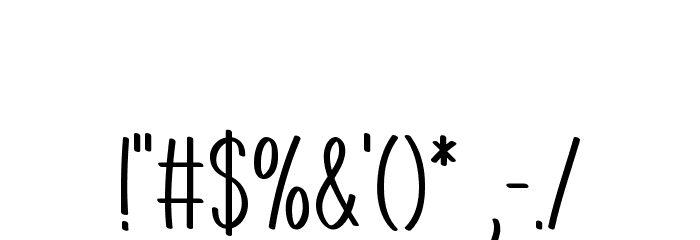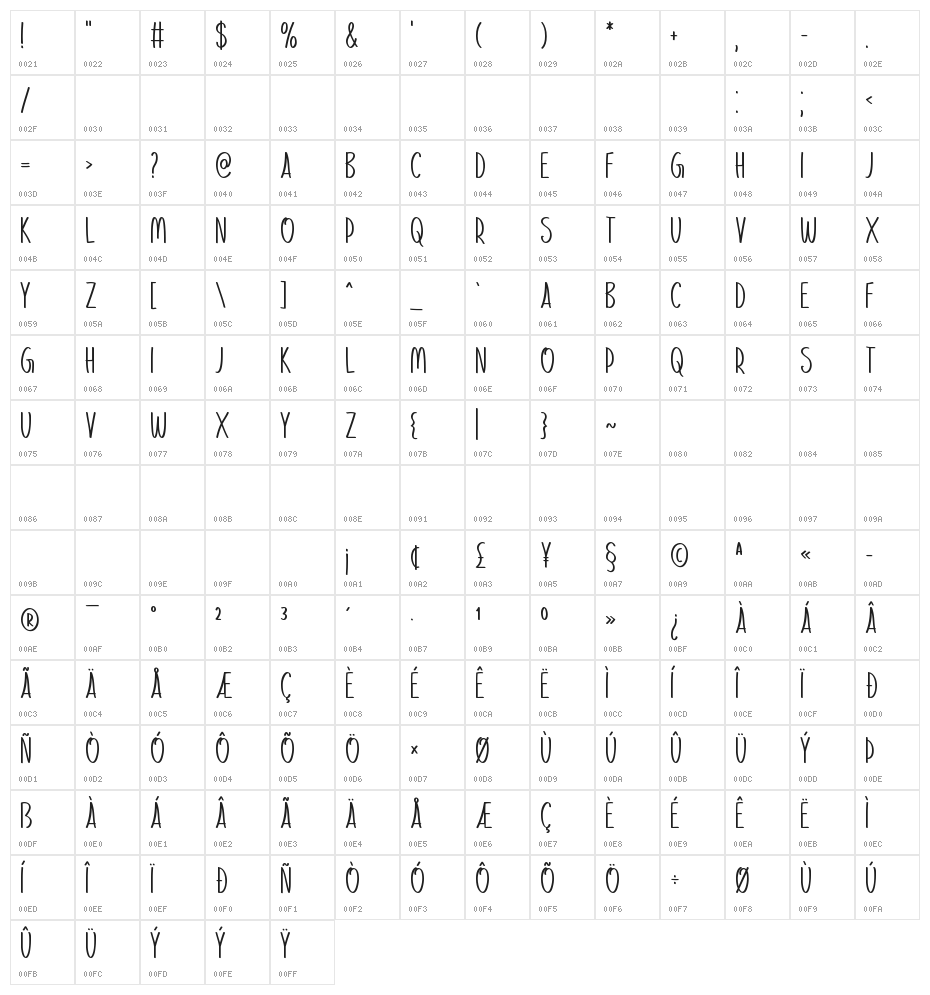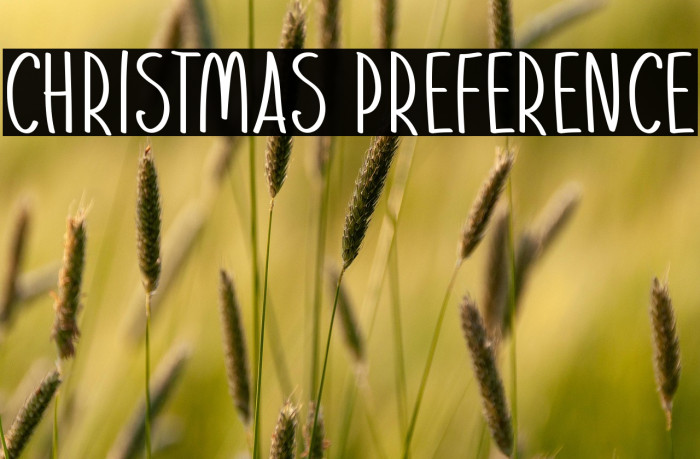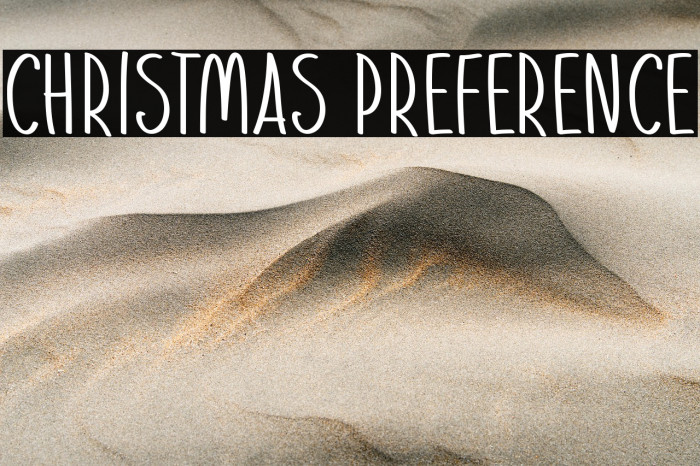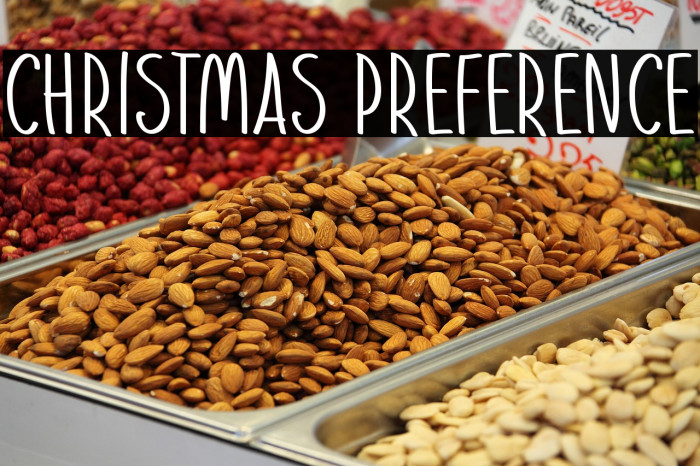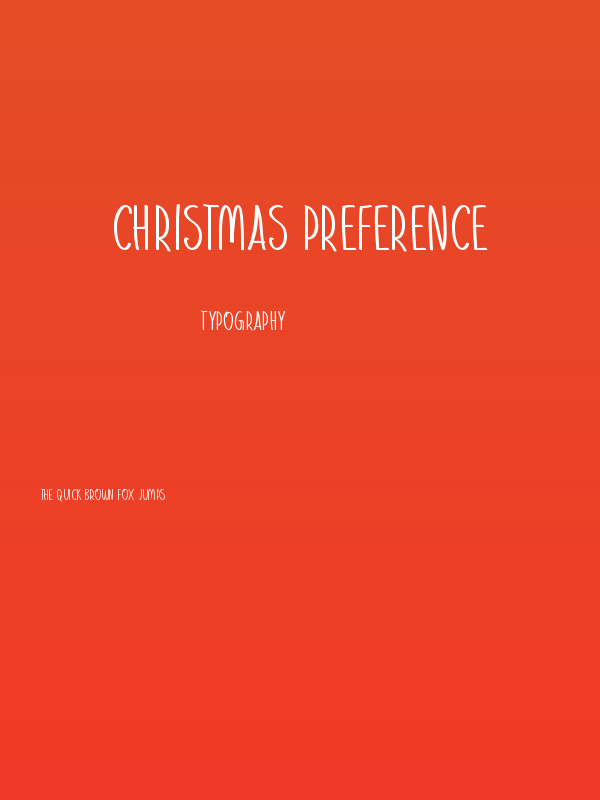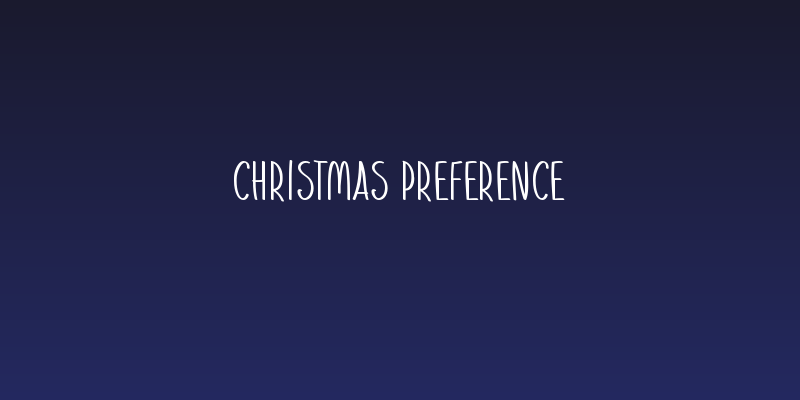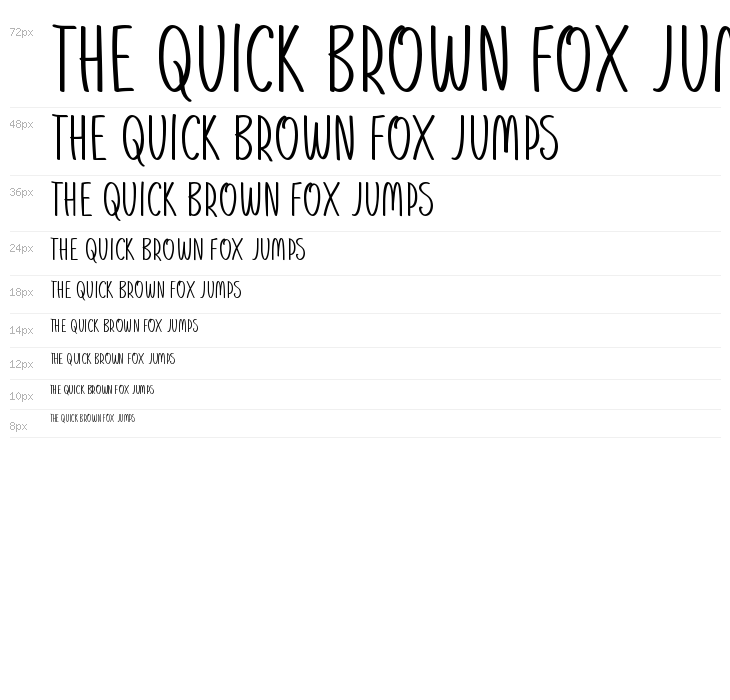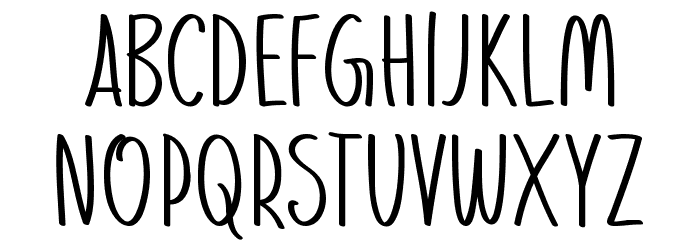
Christmas Preference Font
Christmas Preference Description
This font features a playful and whimsical style, characterized by its tall, narrow letters with slightly uneven strokes that give it a hand-drawn appearance. The uppercase letters are particularly elongated, creating a sense of height and elegance, while the lowercase letters maintain a consistent flow. The font includes a full set of uppercase and lowercase letters, numbers, and a variety of special characters, making it versatile for various uses. Its informal and friendly look makes it ideal for festive or casual designs, adding a touch of personality and charm to any project.
| Proposed Projects | Ideal for holiday cards, invitations, playful branding, children's books, and festive decorations. |